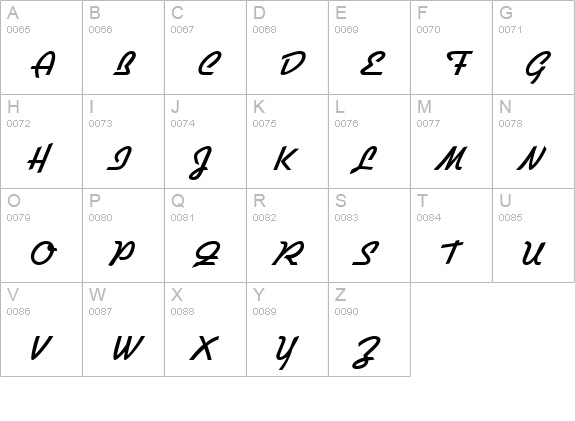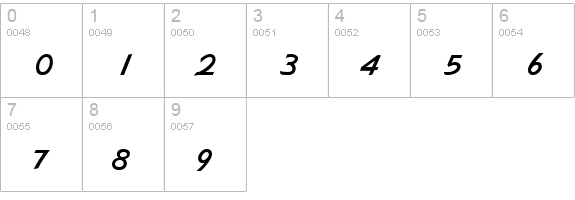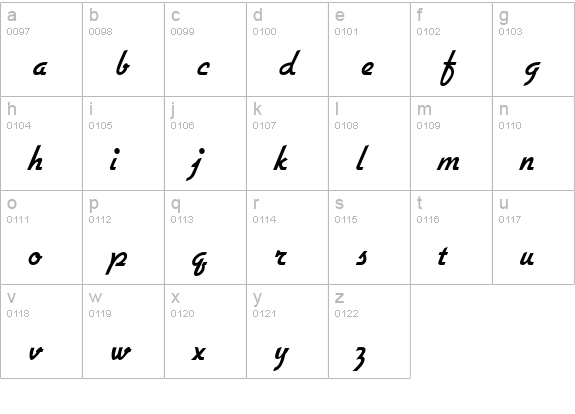
Gallante Regular Font Details
Gallante Regular is the standard, neutral variant in the Gallante typeface family \xE2\x80\x94 well suited to general body text, paragraphs, and standard typographic work.
Gallante Regular font is a versatile and elegant typeface that exudes sophistication and professionalism. With its clean and balanced letterforms, this font is perfect for a wide range of design projects, from branding and advertising to editorial and web design. Featuring a classic yet contemporary design, Gallante Regular font strikes the perfect balance between tradition and modernity. Its refined curves and timeless proportions make it an ideal choice for both headings and body text, ensuring readability and visual harmony. One of the standout features of Gallante Regular font is its versatility. Whether you're designing a logo for a luxury brand, creating a sleek website, or crafting an eye-catching poster, this font adapts effortlessly to various design styles and aesthetics. What sets Gallante Regular font apart is its availability as a free download on FontsMarket.com. This means that designers, creatives, and enthusiasts alike can access this exceptional font without any cost. Its availability as a free resource makes it a valuable asset for both personal and commercial projects. In conclusion, Gallante Regular font is a must-have for designers seeking a timeless and elegant typeface. With its versatility, readability, and the added advantage of being freely available to download at FontsMarket.com, this font is undoubtedly a valuable addition to any designer's toolkit.